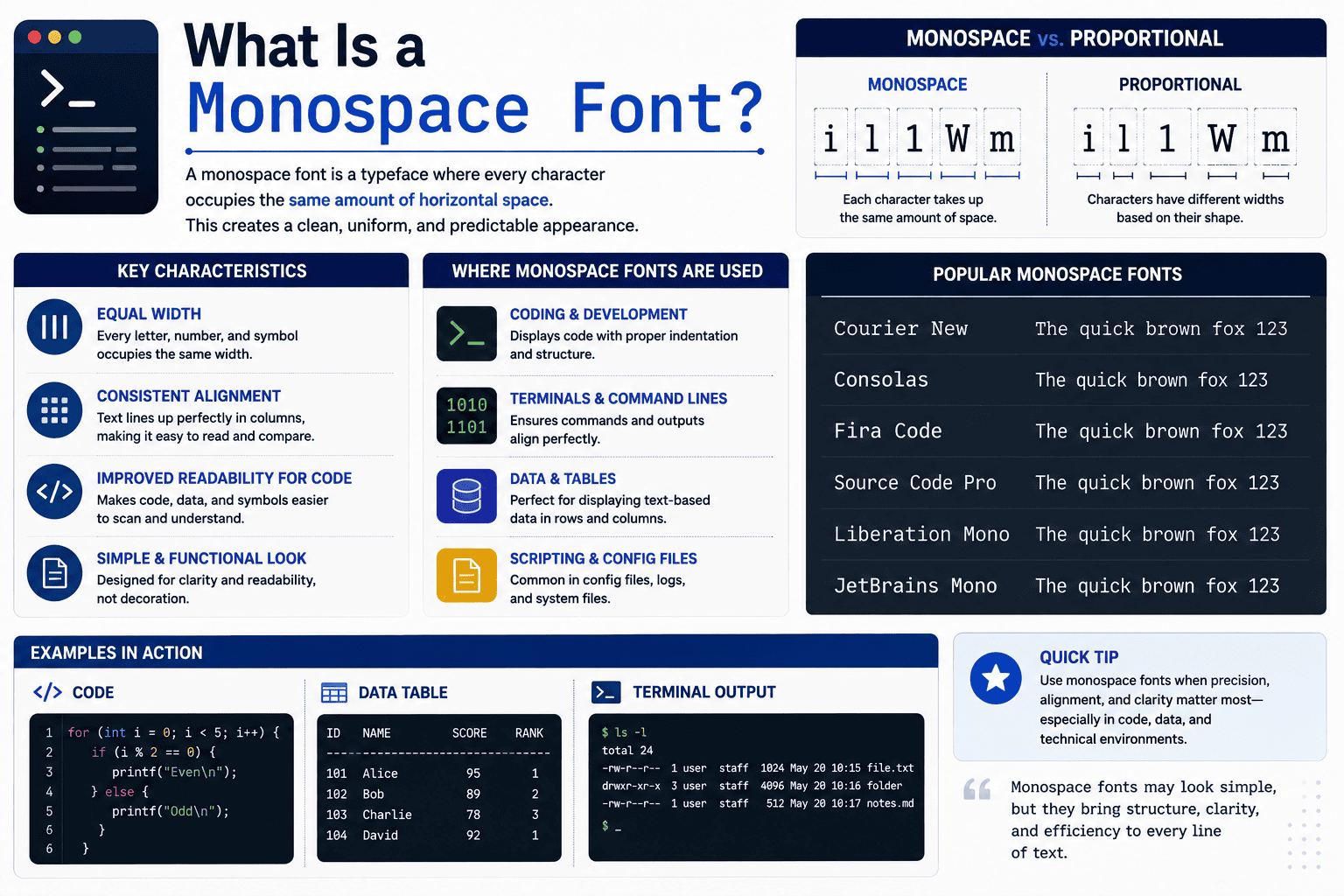
A monospace font is a typeface where characters receive equal width across horizontal space, creating a fixed-width system. I observe this design improves clarity because each character follows planned spacing and supports organized text creation.
Unlike proportional fonts, this format uses uniform alignment through letter shapes, letters, numbers, and symbols with predictable layout. Its fixed-pitch nature helps maintain text structure while wide characters and narrow characters appear balanced visually today.
Monospace Fonts Vs Proportional Fonts
I compare monospace fonts and proportional fonts where character widths define different layouts. Varying widths follow letter shapes, while W and I show why narrow characters and wide characters behave differently in digital text design.
From my typography practice, equal spacing creates consistent width and supports text alignment. Fixed spacing improves readability through a clear spacing system and visual structure, yet some projects need natural spacing for balanced text flow.
History Of Monospace Fonts
The Courier era revealed how typewriter-style designs shaped early monospace fonts through character alignment and structured information needs. These fixed-width approaches supported computer terminals before modern digital typography expanded, showing why consistent spacing became valuable in technical workflows and early computing systems.
I have observed that monospace fonts evolved with programming environments where source code required alignment and syntax clarity. Their role expanded through coding tools, developers, and software interfaces while maintaining structured text, predictable format, and visual organization across many evolving digital systems today.
Characteristics Of Monospace Fonts
Monospace fonts create a distinct visual system where characters maintain equal spacing and consistent layouts. I often notice their precision during coding tasks because numbers, symbols, and sequences remain organized across technical interfaces and displays.
Beyond appearance, these fonts support character alignment through fixed-width design and horizontal positioning. My experience with type systems shows how letter spacing influences readability while structured data and text processing benefit from predictable formatting today.
Popular Monospace Font Examples
Popular monospace fonts include classic and modern choices used across coding and design fields. Courier remains widely recognized from typewriter traditions, while Consolas supports developers needing clear character spacing and structured layouts for professional digital.
Other examples like monospace fonts appear in graphic design projects where typography and visual style create distinct identities. I have observed these fonts provide consistent positioning for technical content and support digital artwork with alignment.
Why Are Monospace Fonts Used For Coding?
I use monospace fonts for coding because programming environments need predictable spacing where source code elements remain aligned. My experience shows code editors benefit from clear syntax highlighting, helping developers inspect symbols and characters quickly.
Beyond visual preference, monospace fonts support development workflow across programming languages by maintaining equal spacing, improving alignment of symbols and characters while creating readable interfaces for software teams that manage complex coding projects with accuracy.
Common Uses Of Monospace Fonts
Monospace fonts support software interfaces where programming tasks, code structures, and text editors require stable placement. I often observe data alignment benefits in systems handling numerical data because uniform characters simplify technical workflows and checks.
Beyond coding, ASCII art and ANSI art use fixed-width fonts for digital artwork. Scripts, screenplays, and professional documents also retain spacing discipline, while OCR applications use predictable characters for accurate machine processing in modern workflows.
Monospace Fonts In Programming Environments
In my experience, programming environments rely on IDEs where default coding fonts improve code structure through clear spacing and alignment during software development tasks. These tools support many programming languages while maintaining visual consistency daily.
Beyond editors, I observe command-line interfaces and technical documentation benefit from structured layouts because developers can scan complex instructions faster with predictable designs. This practical approach connects typography choices with efficient coding workflows across systems.
Monospace Fonts In Data Alignment
In data alignment, I observe how tabular figures organize numbers through columns where equal spacing supports precise financial data and clearer calculations during complex reviews using tables with reliable visual balance and organized data flow.
Yes, Courier New is a classic monospace font with character spacing used in typewriters and coding contexts where equal distance matters for alignment and readability. My experience shows its distinctive style remains recognized across systems.
Are Monospace Fonts Good For Reading?
Monospace Fonts can support reading when aligned text improves focus, especially in technical materials. My experience shows their consistent positioning helps scanning, but long paragraphs may create text density and reduce comfort for general readers.